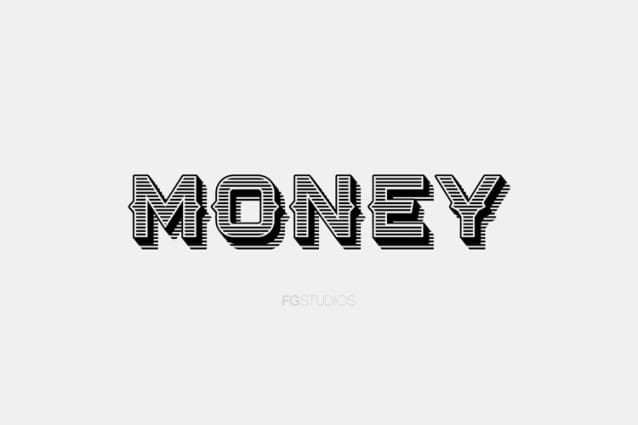
Money Display Font
Money Display Font, Suitable for any design needs : logo, branding, modern advertising design, logos, poster quote, book / cover Title, editorial design, website / blog, card, t-shirts,…